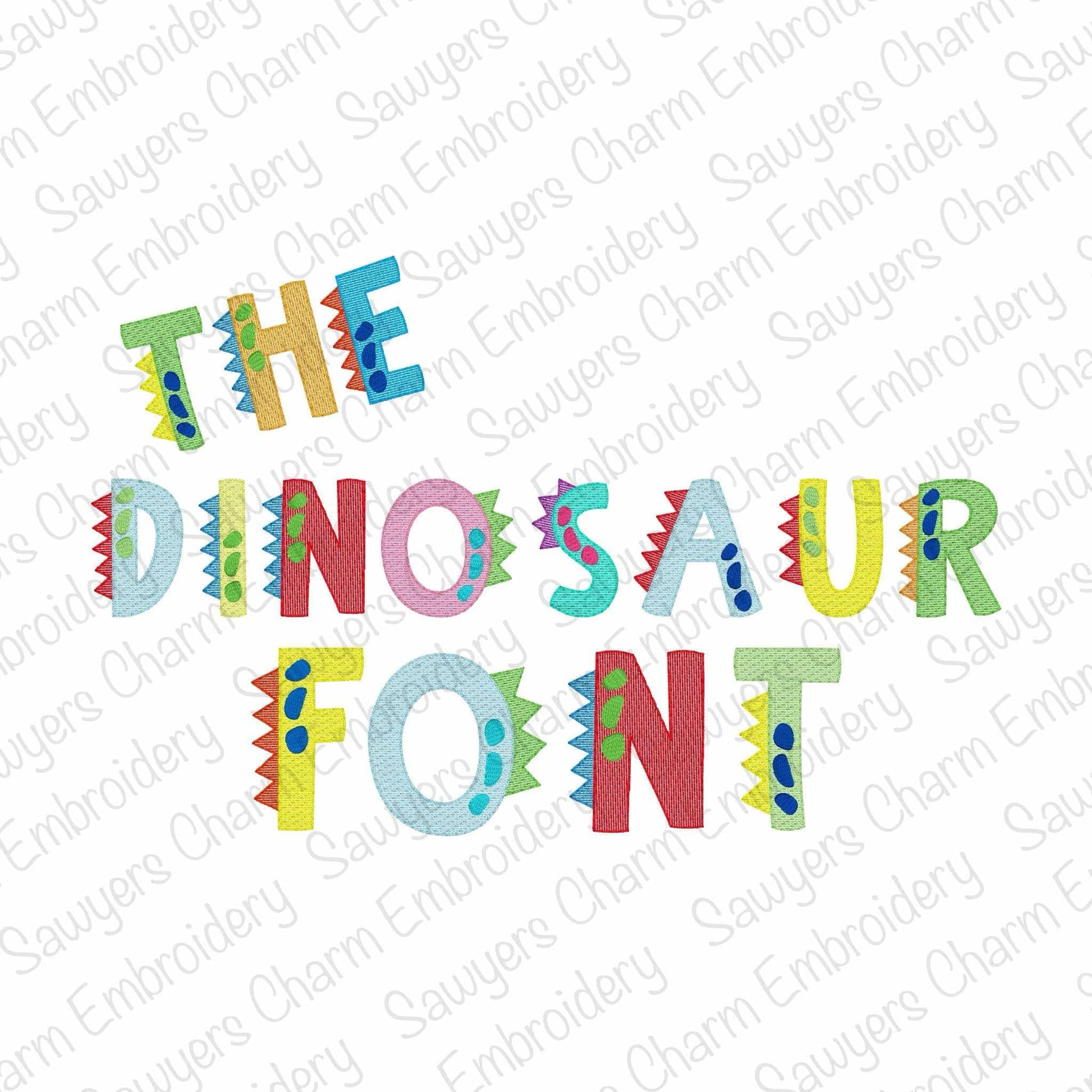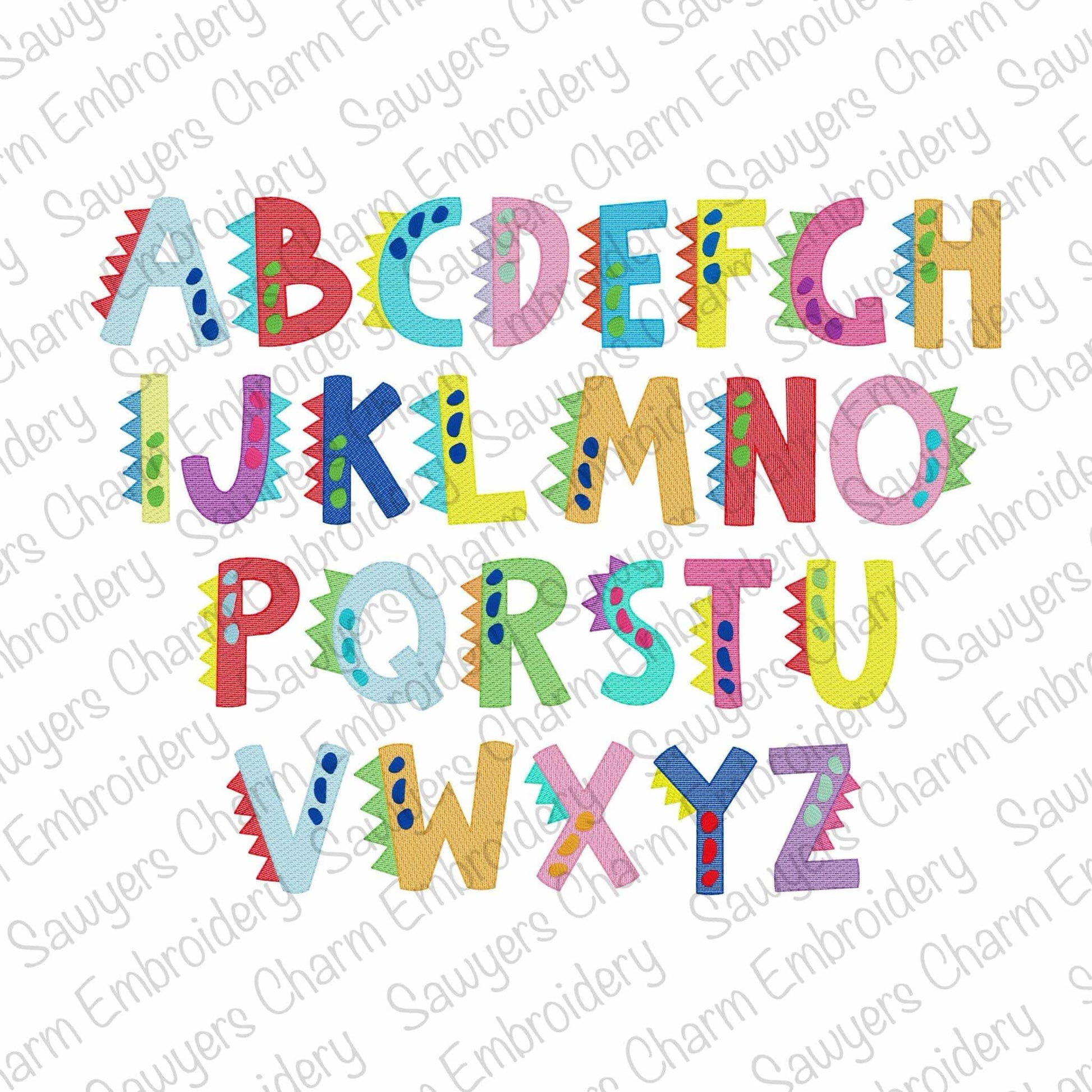
Dinosaur sketch stitch machine embroidery font, bean stitch details, 6 sizes, BX included, perfect for monograms, girl & boy, quick stitch
This embroidery font comes in 6 sizes.....1", 1.5", 2", 2.5", 3", and 3.5". This is a light fill sketch font with bean stitch finishing details. This has all 26 capital letters in the alphabet. So many possibilities with this font! :) Perfect for boys or girls depending on colors used.
These sketch designs look best on white or light colored items as the fabric will show through some. You can use white heat transfer vinyl underneath the stitching on dark colored items to make the thread colors pop against the dark item. There are tutorials online for this method if you aren't familiar with it.